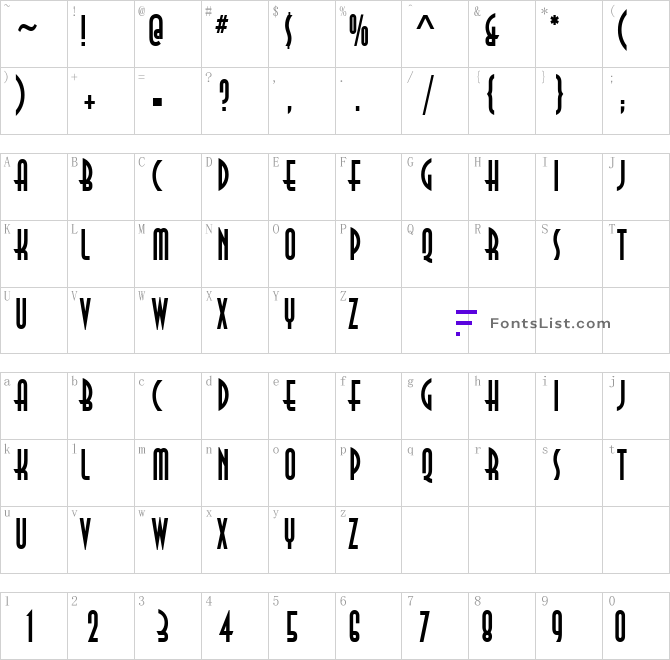
- Font Name:Astrid
- Full Name:Astrid Long
Astrid-Long.ttf is a very beautiful artistic font, Astrid-Long.ttf is widely used in the design and printing of various books and pictures,Astrid-Long.ttf has a strong visual impact,Astrid-Long.ttf is a commonly used font in newspapers, magazines and books, and is used in posters, e-commerce Poster design, store design, logo design, font design and other fields.Astrid-Long.